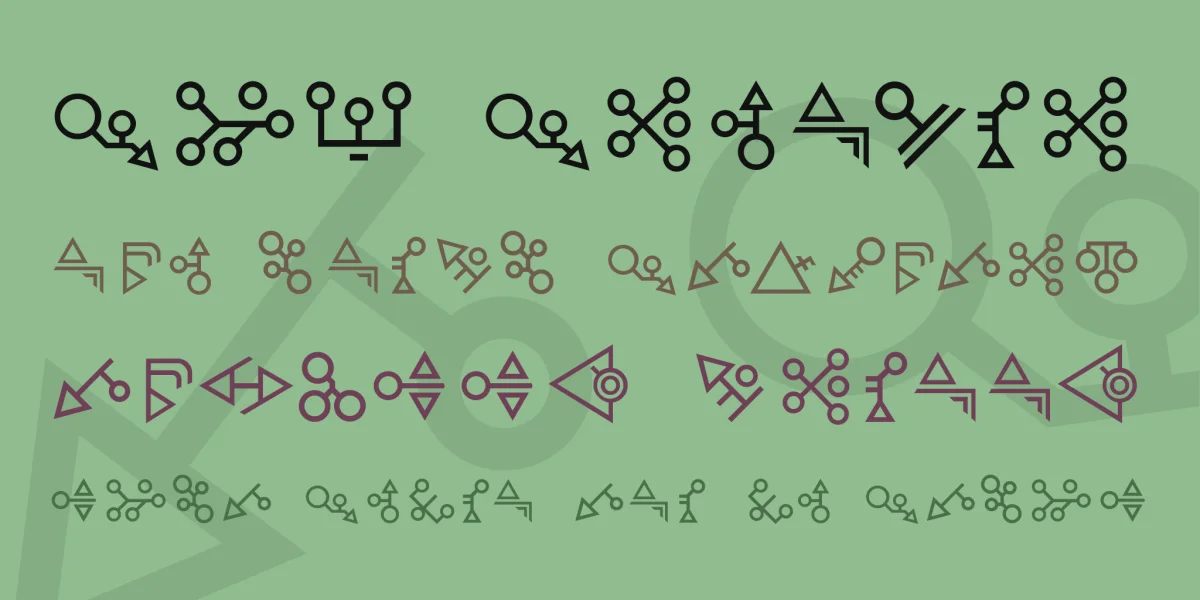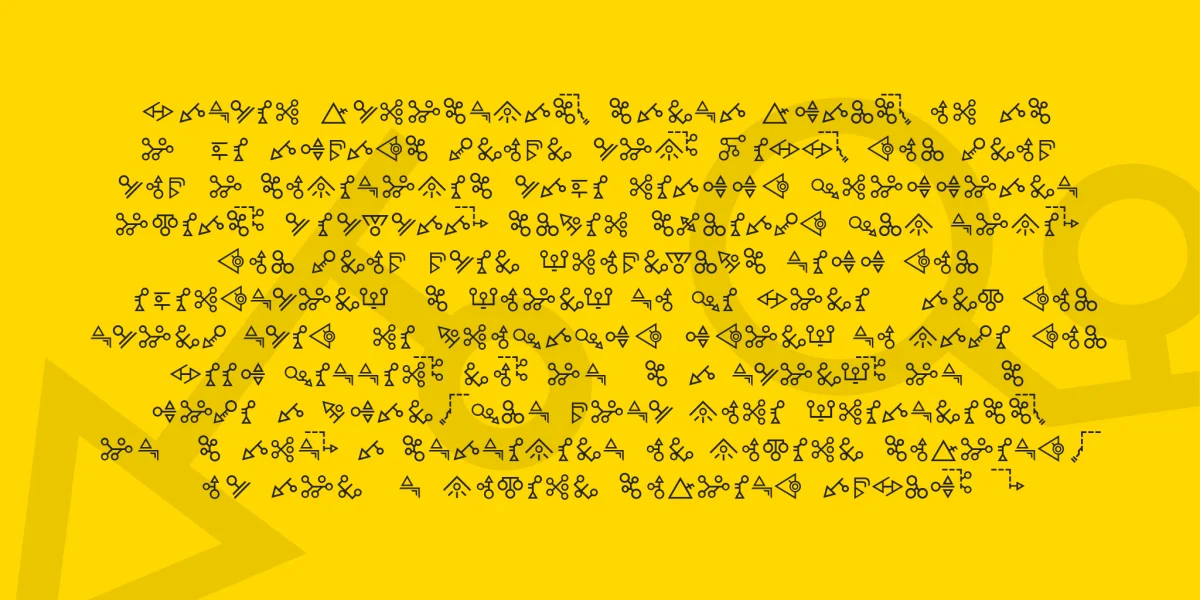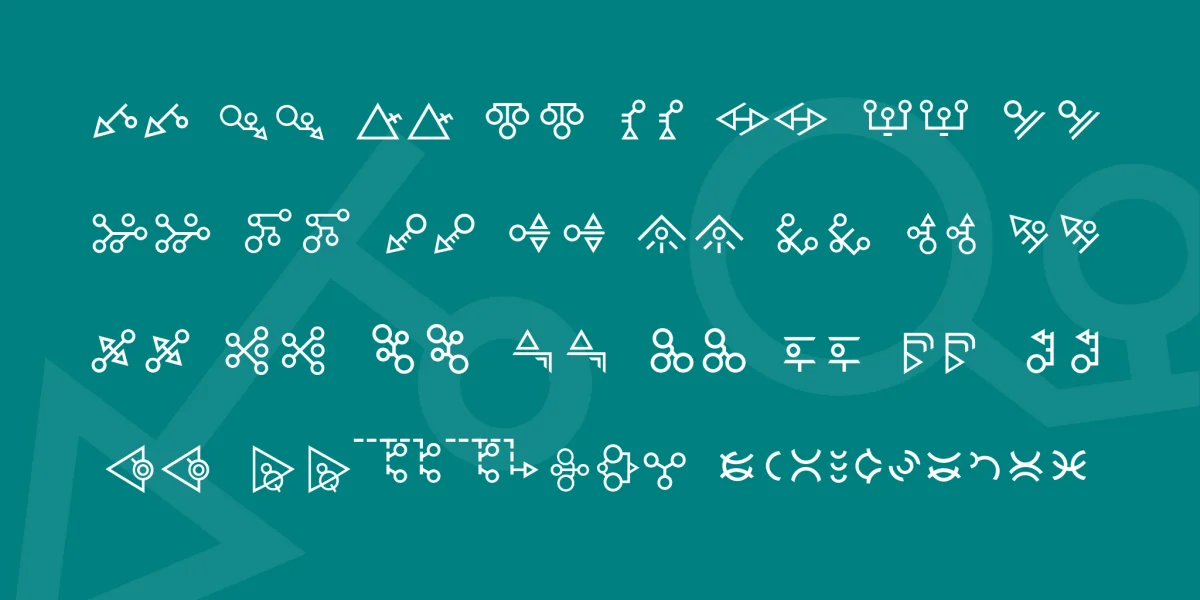
The Sprykski script appears in the Volnaiskra videogame "http://www.volnaiskra.com/about-spryke.html", where it is used by a fictional, futuristic race. It was designed by Dave Bleja, and is loosely based on Glagolitic; more information about the alphabet's design process can be read "http://www.volnaiskra.com/devblog/designing-an-alien-alphabet". Sprykski contains 52 letters, and can natively be used to write English, Polish, and most other Slavic languages. For more info, visit "http://www.volnaiskra.com"